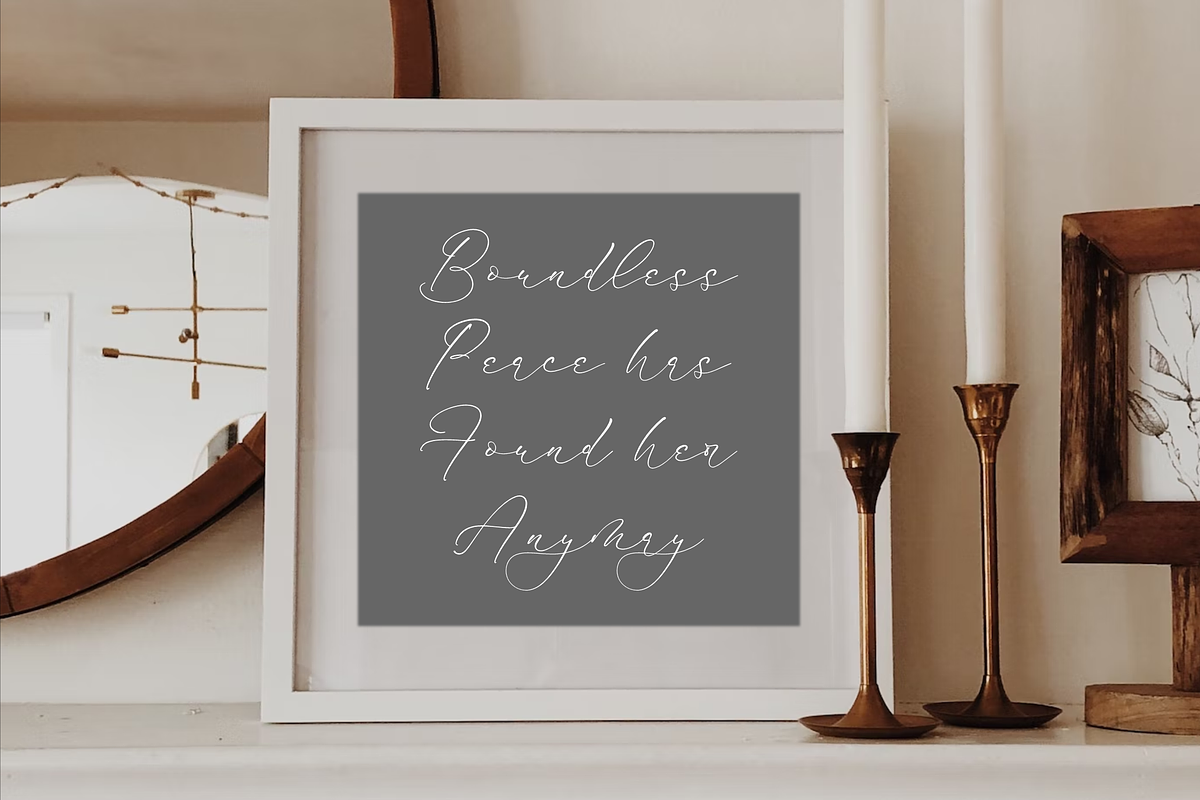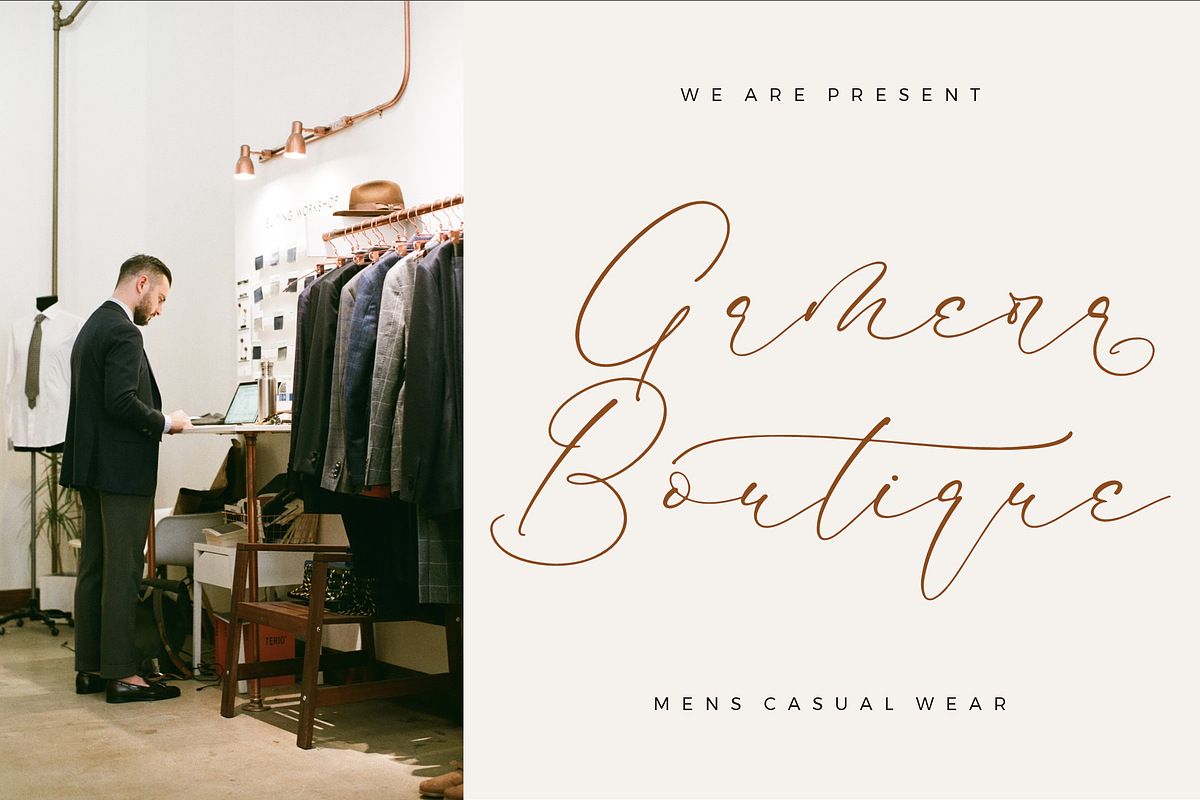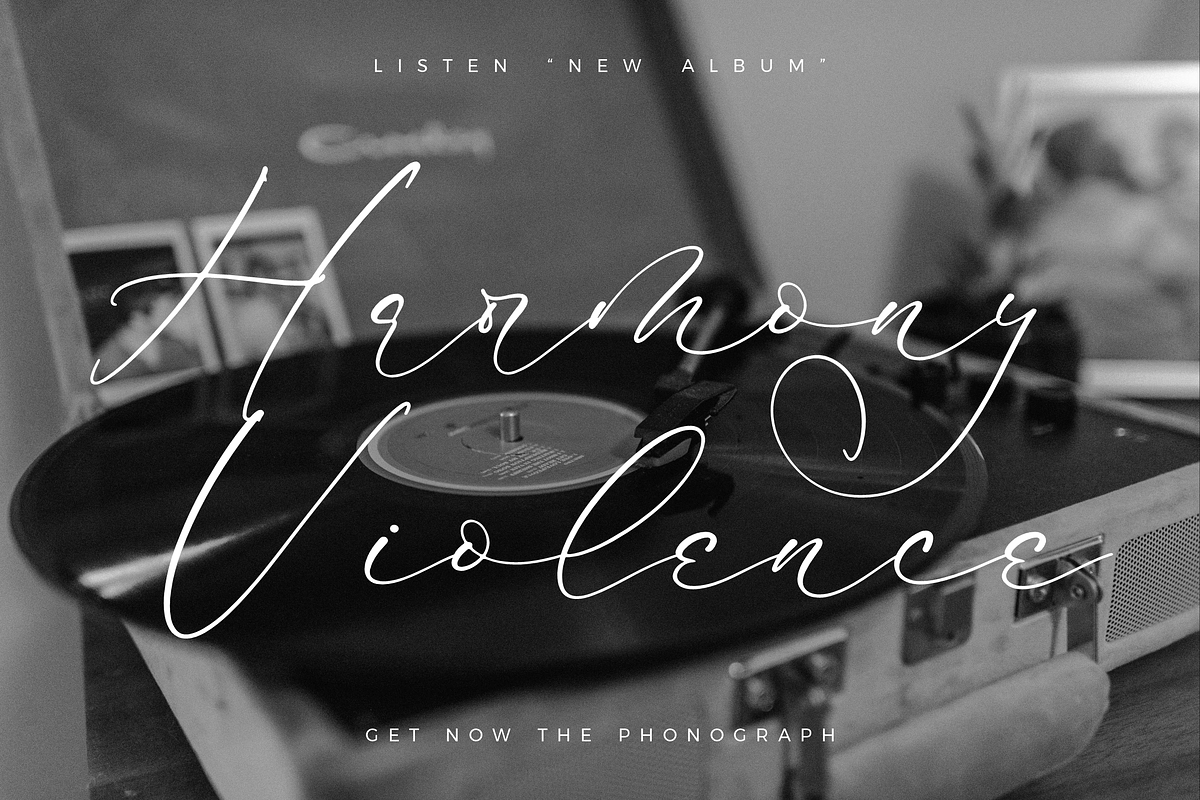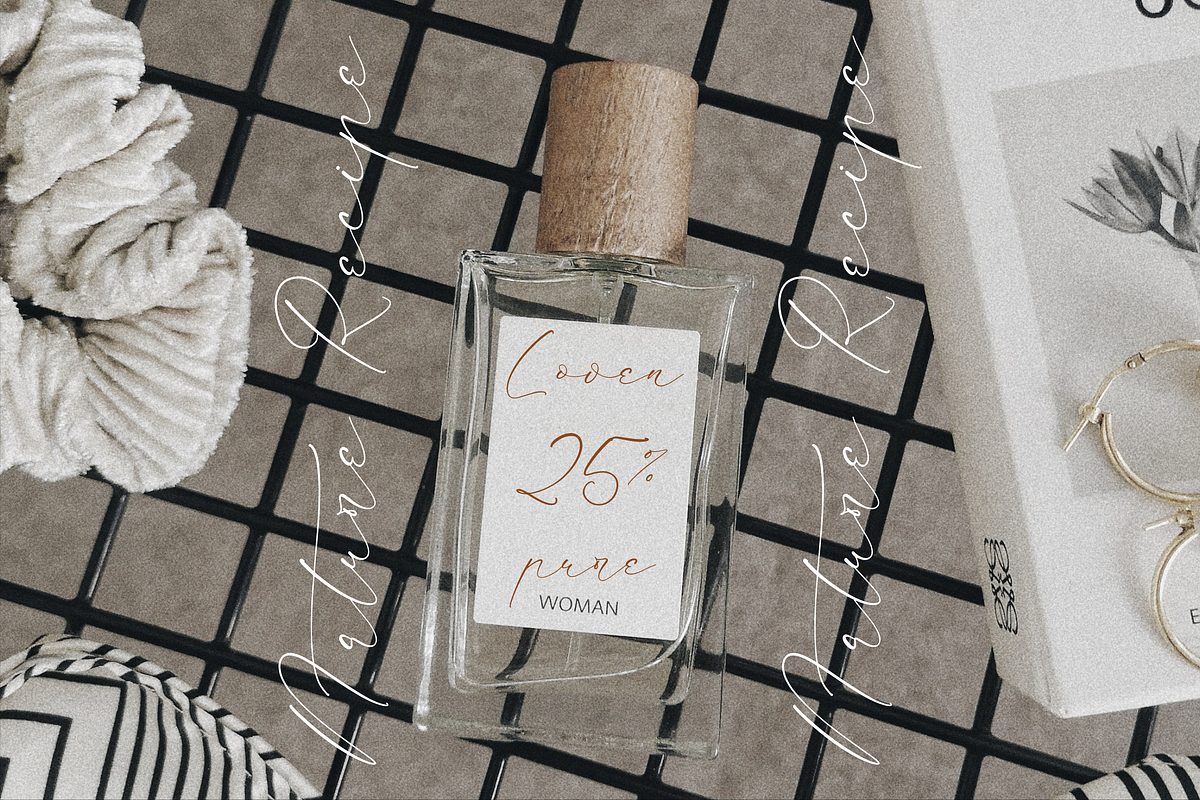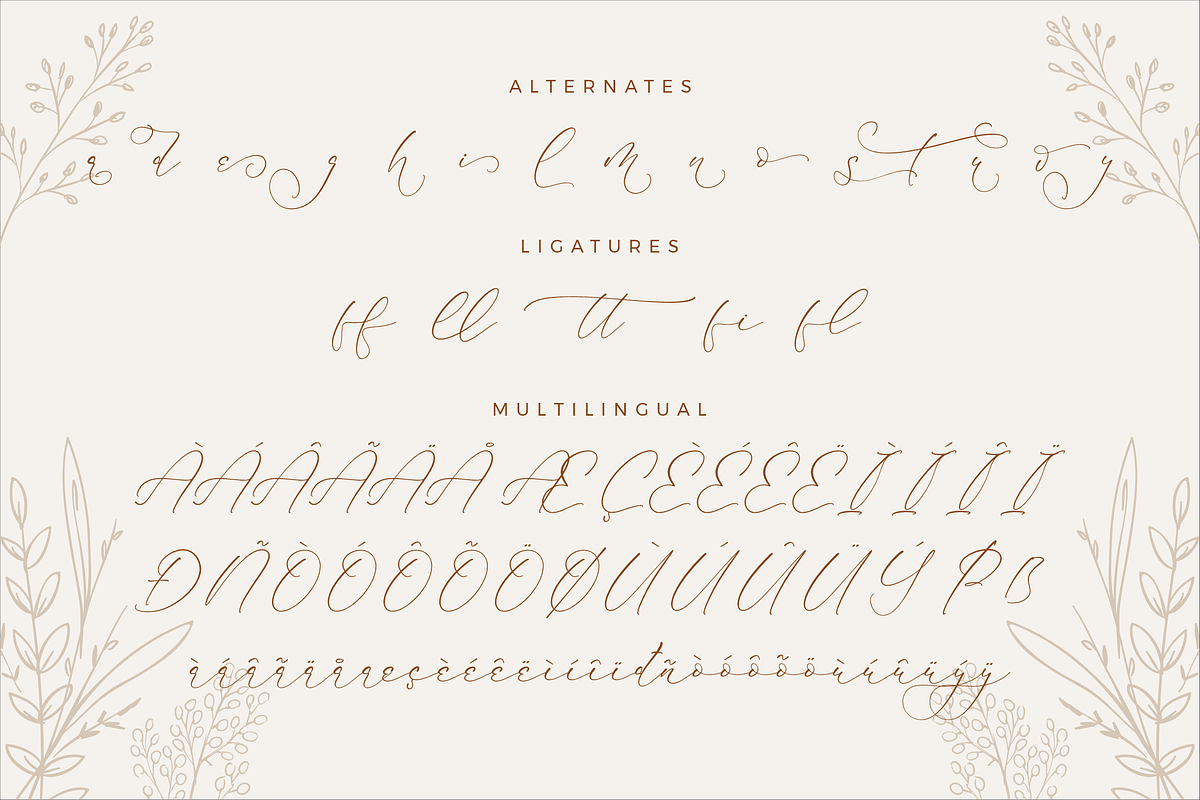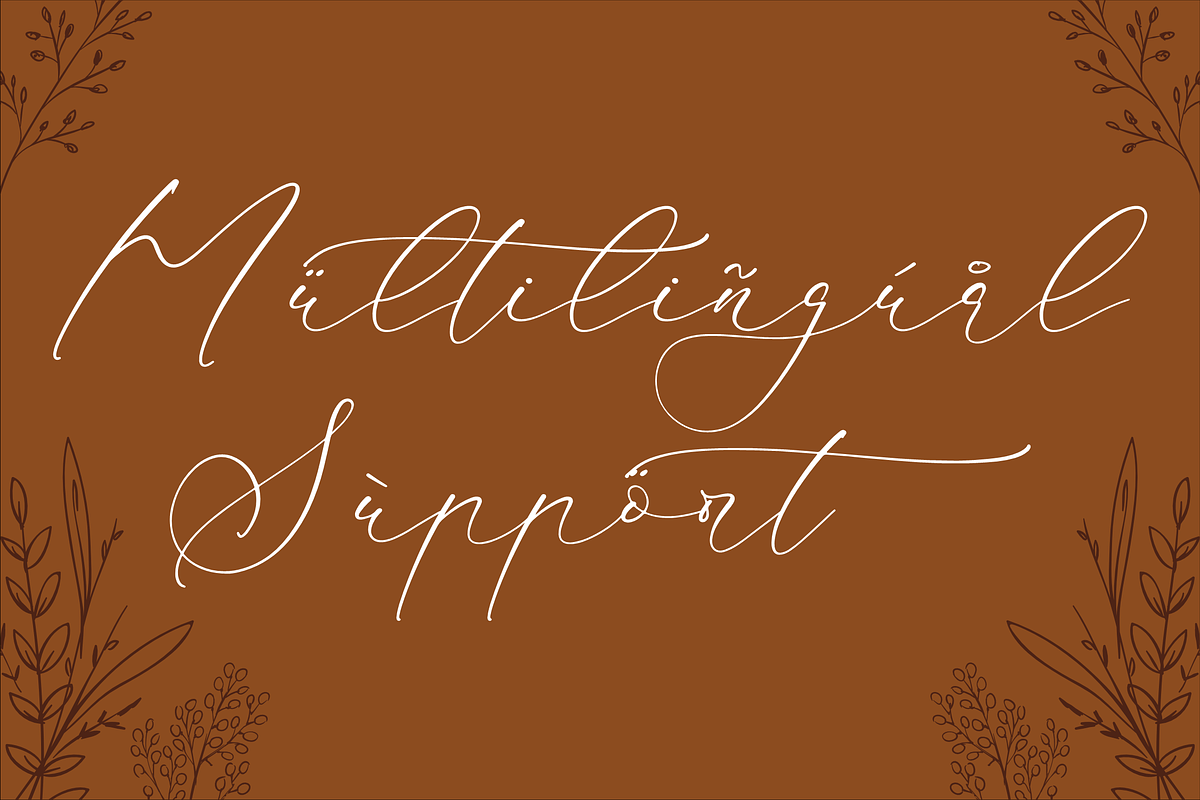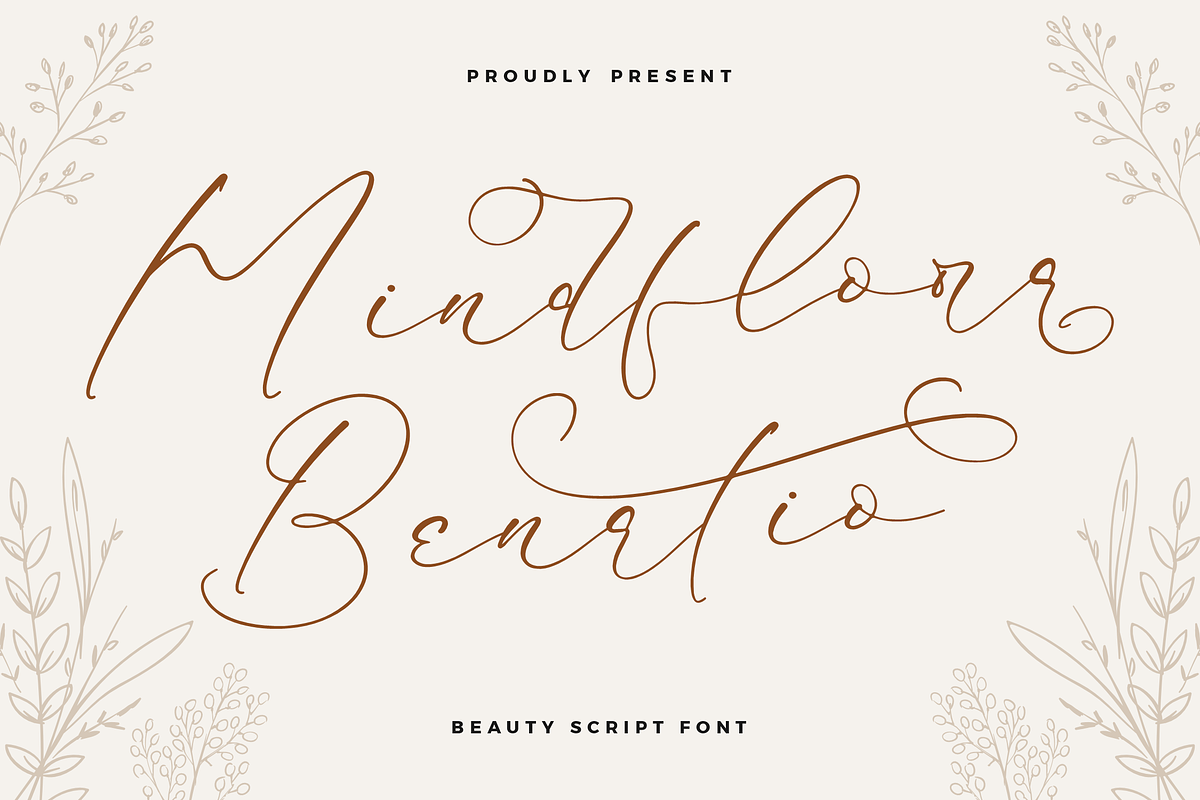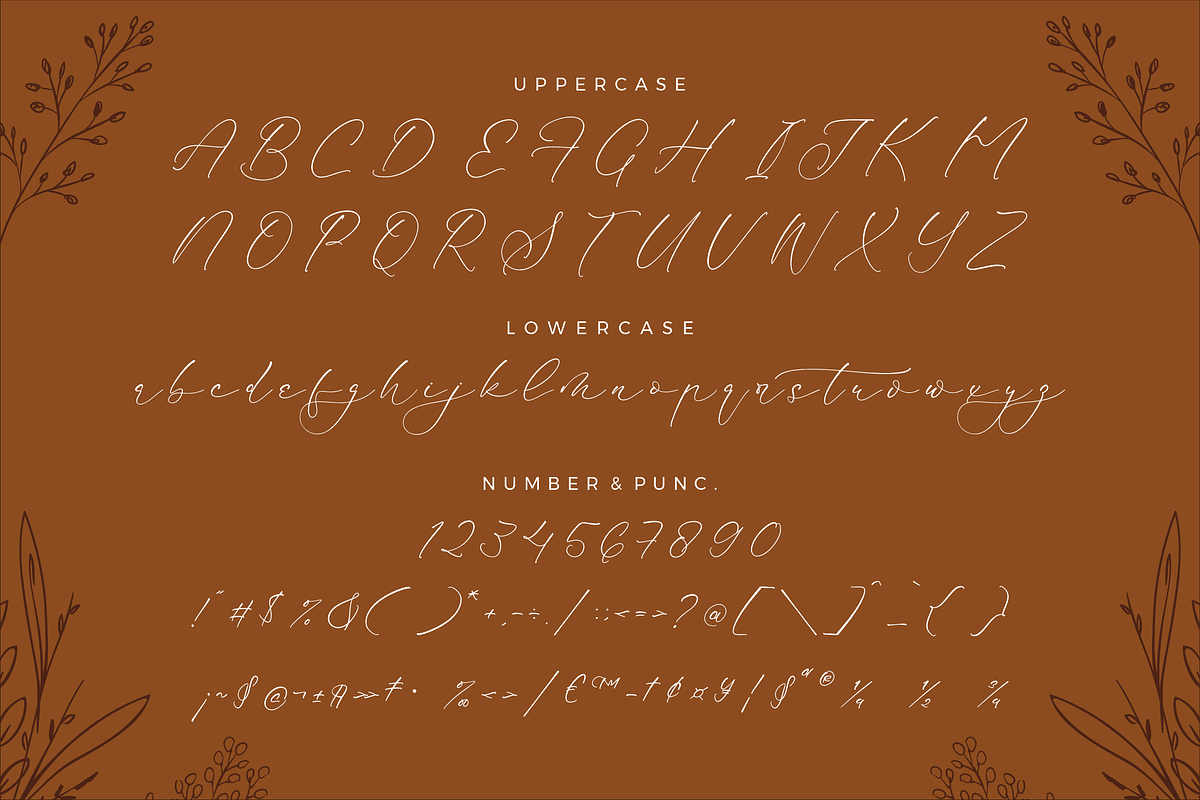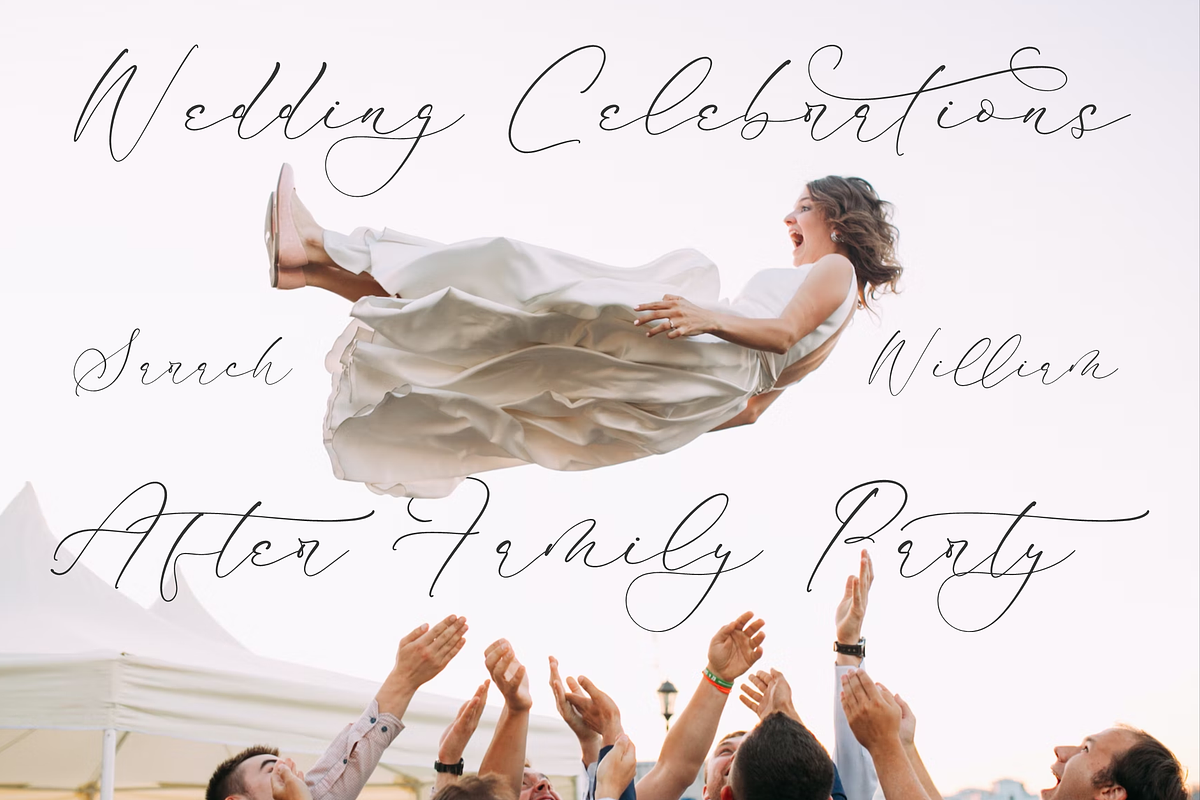
Mindflora Benatio Beauty Script Font
Proudly present Mindflora Benatio - Beauty Script Font , created by Storytype, A luxury script that has own unique style & modern look. This typeface is perfect for an elegant & luxury logo, book or movie title design, fashion brand, magazine, clothes, lettering, quotes, and so much more.